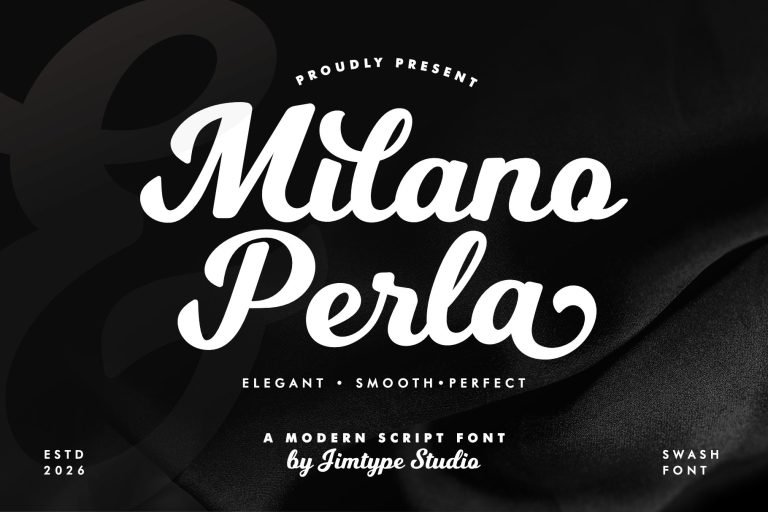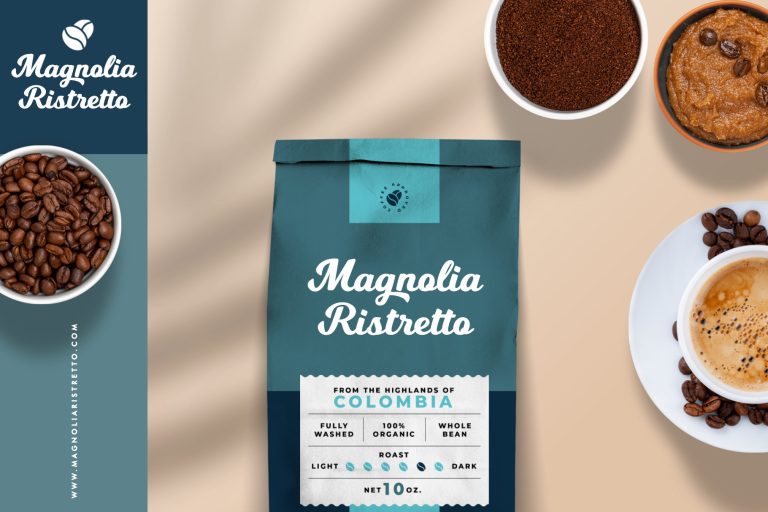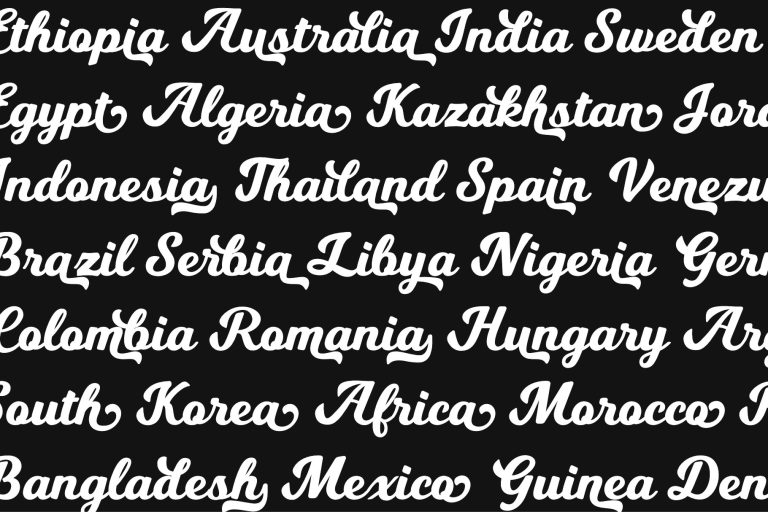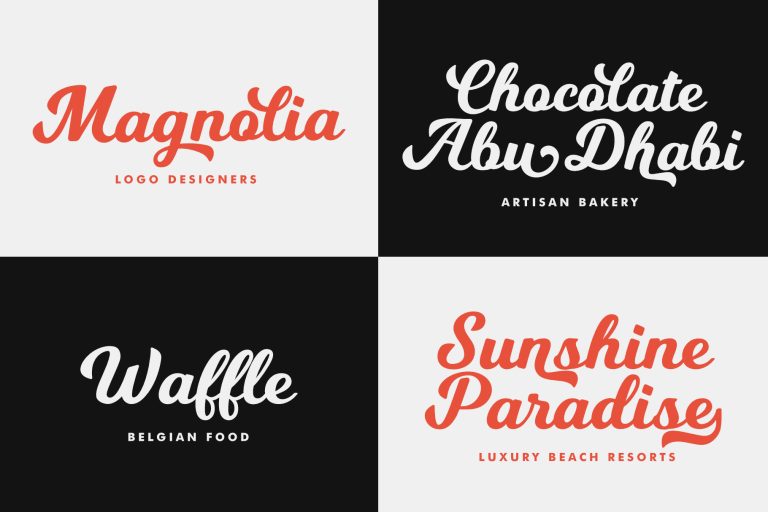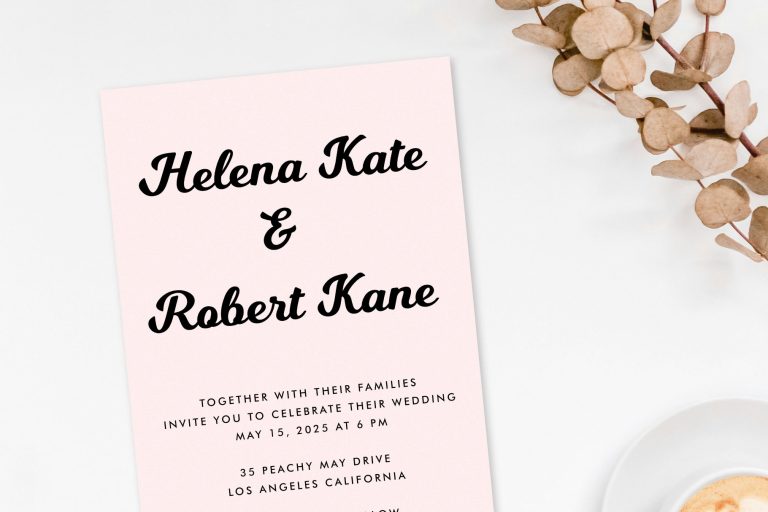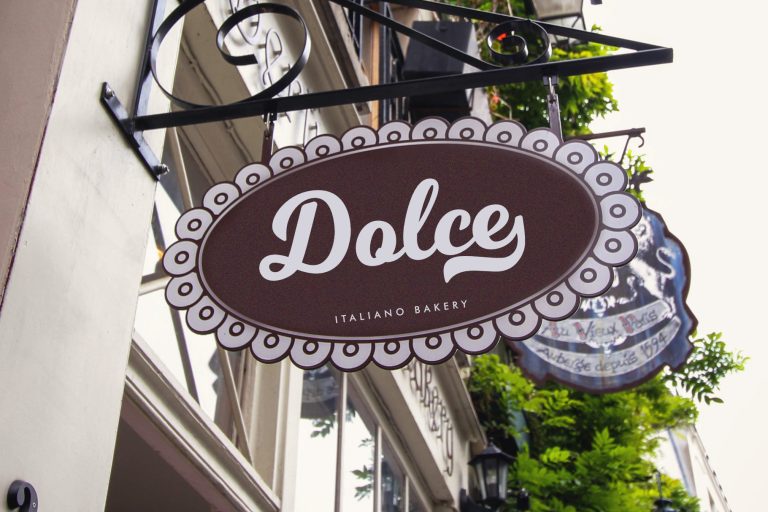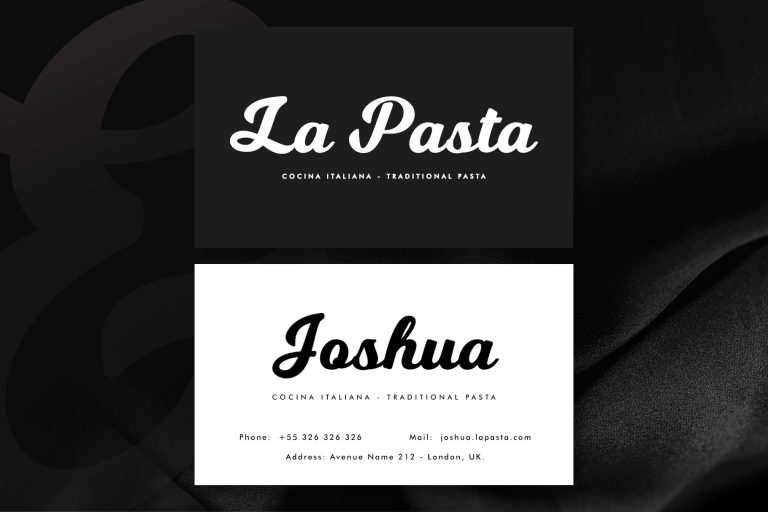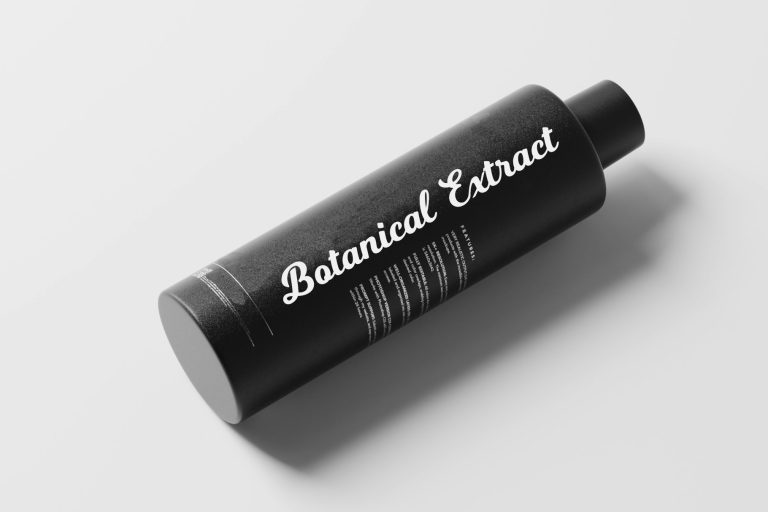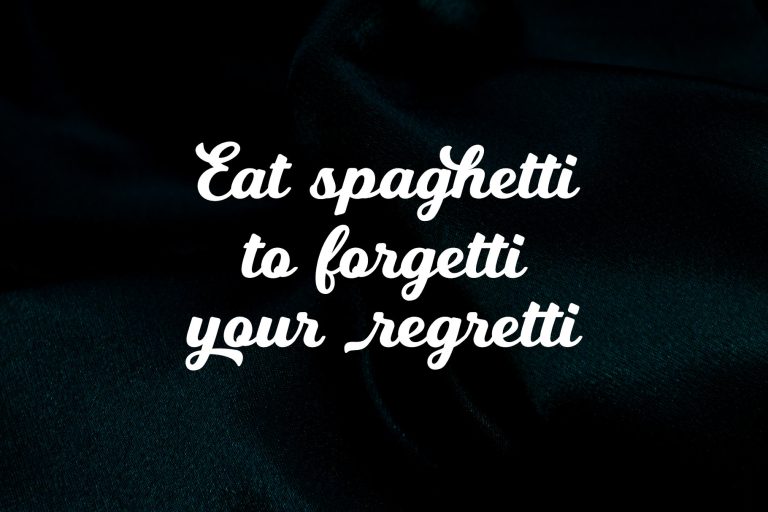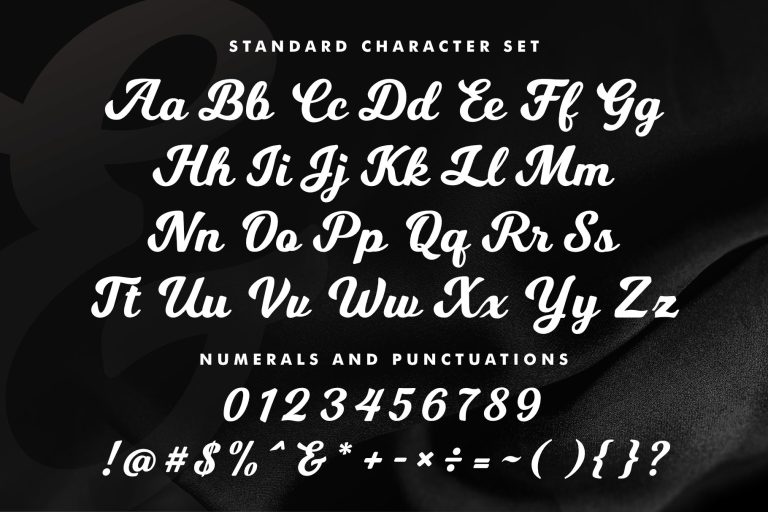
Milano Perla - Modern Branding Font from Jimtype Studio
Milano Perla
Milano Perla – Modern Branding Font from Jimtype Studio
Elevate your designs with Milano Perla, a bold yet fluid script font designed to bring character, dynamism, and a touch of retro charm to your work.
With its bold style, flowing curves, and natural swashes, Milano Perla makes a stunning impression—perfect for logos, branding, headlines, and social media. It is crafted to help you easily create designs that feel natural and distinctive.
Whether for logos, branding, product packaging, wedding stationery, or social media, Milano Perla infuses your typography with a strong handwritten character while maintaining a clean, modern aesthetic.
Milano Perla Font